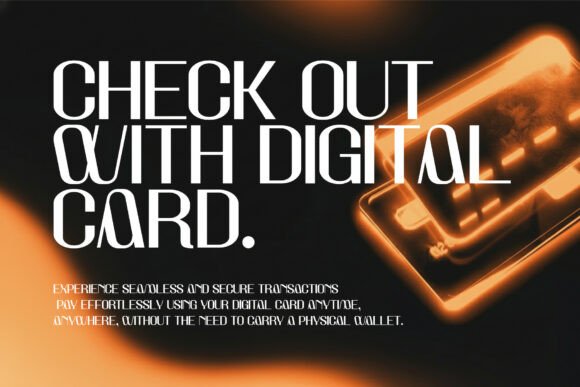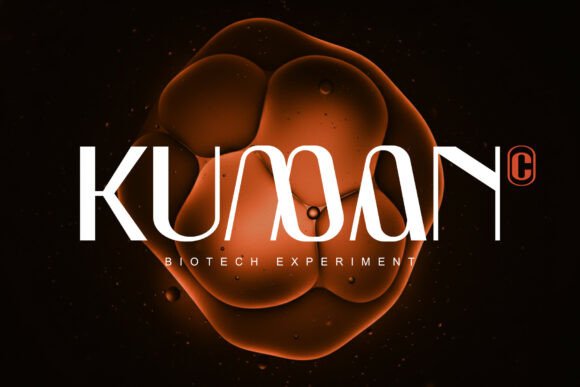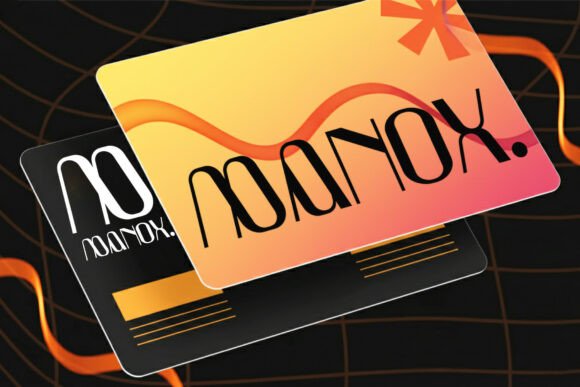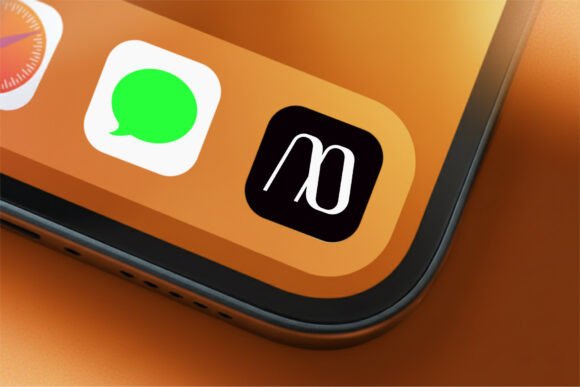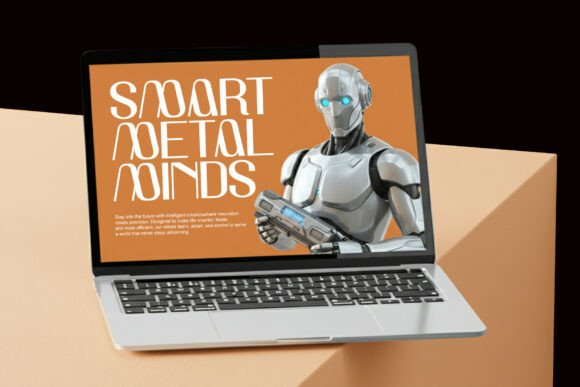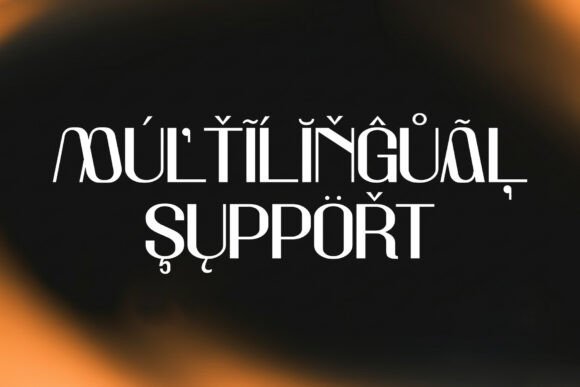
Unlocking the Future of Design: Introducing Anmox Font
As a designer, have you ever found yourself stuck in a creative rut, searching for the perfect font to elevate your project and transport your audience to a world of innovation and possibility? For me, that moment came when I stumbled upon a sleek, futuristic logo that seemed to leap off the screen – it was the spark that ignited a passion for exploring the cutting-edge world of typography.
That’s where Anmox Font comes in – a game-changing font designed to give your designs a bold, forward-thinking identity. With its unique curve transitions and clean edges, Anmox Font is the perfect tool for technology branding, AI projects, modern logos, and science fiction titles. Whether you’re a seasoned designer or just starting out, this versatile font is sure to bring your creative vision to life.
What sets Anmox Font apart is its perfect balance of style and legibility, making it an invaluable asset for any designer looking to push the boundaries of their work.
Anmox Font Key Features
- Unique Character Set: Anmox Font features a unique set of characters, including Cyrillic, Greek, and Latin alphabets, making it an ideal choice for multilingual designs.
- Font Style Variations: Anmox Font offers a range of font styles, including Regular, Bold, Italic, and Bold Italic, providing designers with flexibility and creative options.
- Font Weight and Width: Anmox Font features a range of font weights, from Hairline to Black, and widths, from Ultra Condensed to Extended, allowing designers to create visually appealing and balanced typography.
Anmox Font Review
Overall, I was quite impressed with Anmox Font. ✨ Its unique blend of modern and vintage elements makes it a standout in the world of sans-serif fonts. The font’s bold lines and geometric shapes give it a strong, confident feel that’s perfect for headlines and titles.
One of the things that really stood out to me about Anmox Font was its versatility. ✨ It works well in a variety of contexts, from digital displays to print materials. The font’s clean lines and minimal ornamentation make it easy to read, even at small sizes.
- Unique blend of modern and vintage elements
- Bold lines and geometric shapes give it a strong, confident feel
- Works well in a variety of contexts, from digital displays to print materials
- Easy to read, even at small sizes
- May be too bold for some designs, overpowering other elements
- Lack of italic and oblique styles may limit its use in certain contexts
Overall, I would recommend Anmox Font to designers looking for a bold, confident font that can add some personality to their designs. With a little care and attention, it can be a real showstopper.
Tips for Getting the Most Out of Anmox Font
For best results, use Anmox Font in conjunction with bold or italic text to create visual interest.
Anmox Font is ideal for use in headings and titles.
Experiment with different font sizes to create a balanced design.
Anmox Font is commonly used in:
– Graphic design projects
– Digital marketing materials
– Print materials such as business cards and brochures